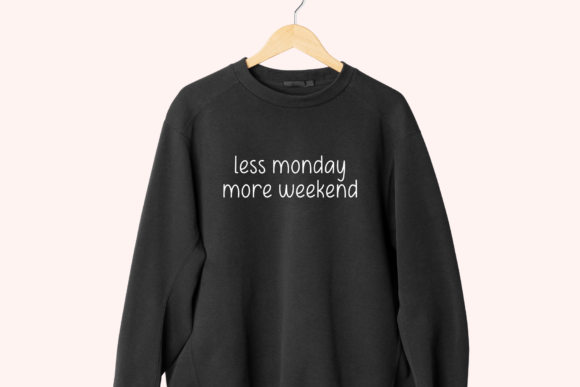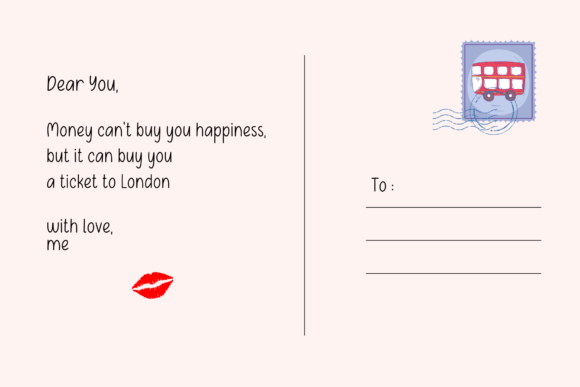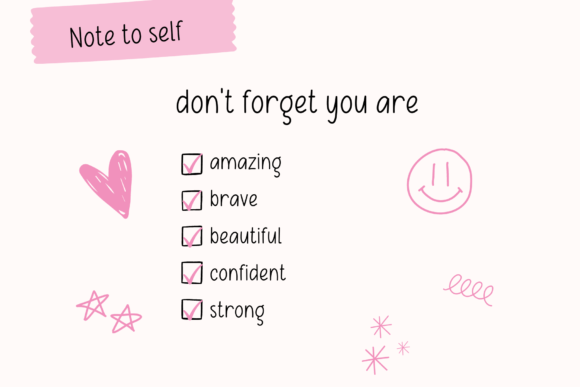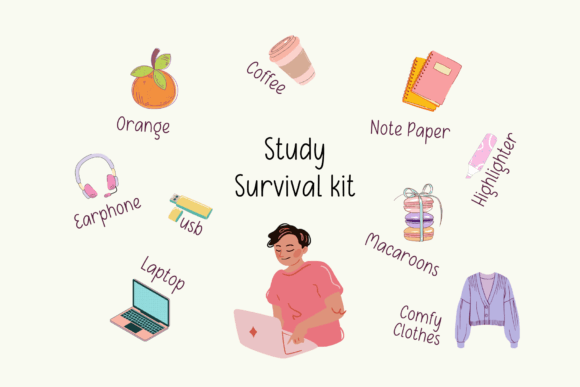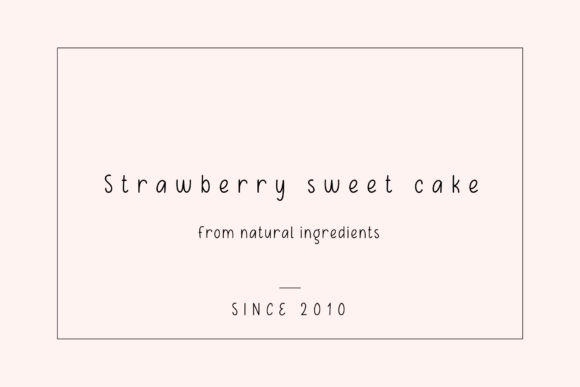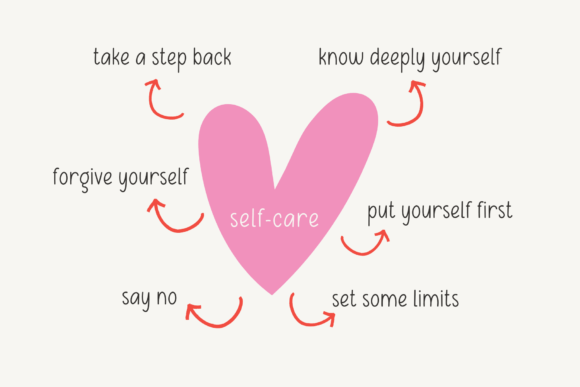
Introducing Cheesecake Font: The Sweetest Addition to Your Design Collection
Are you tired of using the same old fonts in your designs? Look no further! Cheesecake Font is a sweet and friendly handwritten font that’s sure to add a touch of warmth and personality to your creations. With its natural and unique style, Cheesecake Font is incredibly versatile and can be used in a wide range of designs, from DIY projects to professional branding materials.
The Charm of Cheesecake Font
Cheesecake Font is a handwritten font that’s designed to evoke a sense of friendliness and approachability. Its soft, rounded edges and flowing curves make it perfect for designs that require a personal touch. Whether you’re creating a logo, a greeting card, or a social media graphic, Cheesecake Font is sure to add a dash of sweetness to your design.
One of the best things about Cheesecake Font is its versatility. It’s a font that can be used in a variety of contexts, from formal to informal, and can be paired with a range of other design elements to create a unique look. Whether you’re a designer, a crafter, or a DIY enthusiast, Cheesecake Font is a great addition to your toolkit.
What Makes Cheesecake Font So Special?
So, what sets Cheesecake Font apart from other fonts? Here are just a few reasons why this font is a standout:
- Unique Style: Cheesecake Font has a one-of-a-kind style that’s both natural and elegant. Its handwritten curves and flourishes make it perfect for designs that require a personal touch.
- Versatility: Cheesecake Font can be used in a wide range of designs, from formal to informal. It’s perfect for logos, branding materials, social media graphics, and more.
- Easy to Read: Despite its unique style, Cheesecake Font is incredibly easy to read. Its clear and flowing curves make it perfect for designs that require a lot of text.
- Highly Customizable: Cheesecake Font can be paired with a range of other design elements to create a unique look. It’s perfect for designers who like to experiment with different styles and combinations.
How to Use Cheesecake Font in Your Designs
So, how can you use Cheesecake Font in your designs? Here are a few ideas to get you started:
- Branding Materials: Use Cheesecake Font to create custom branding materials, such as logos, business cards, and letterheads.
- Social Media Graphics: Add a touch of personality to your social media graphics with Cheesecake Font. It’s perfect for creating custom Facebook posts, Twitter headers, and Instagram stories.
- DIY Projects: Cheesecake Font is perfect for DIY enthusiasts who love to create handmade crafts. Use it to add a personal touch to your projects, such as scrapbook pages, journal entries, and card making.
- Web Design: Cheesecake Font can be used in web design to create custom website headers, buttons, and other design elements.
Tips and Tricks for Working with Cheesecake Font
Here are a few tips and tricks to help you get the most out of Cheesecake Font:
- Experiment with Different Sizes: Cheesecake Font looks great in a range of sizes, from small to large. Experiment with different sizes to find the one that works best for your design.
- Pair with Other Fonts: Cheesecake Font can be paired with a range of other fonts to create a unique look. Try pairing it with a bold sans-serif font for a striking contrast.
- Use it Sparingly: While Cheesecake Font is a beautiful font, it can be overwhelming if used too much. Use it sparingly to add a touch of personality to your design.
| Font Name | Cheesecake Font |
| Author | Cotton White Studio |
In conclusion, Cheesecake Font is a sweet and friendly handwritten font that’s perfect for designers and crafters who want to add a touch of personality to their creations. With its natural and unique style, Cheesecake Font is incredibly versatile and can be used in a wide range of designs. Whether you’re creating branding materials, social media graphics, or DIY projects, Cheesecake Font is a great addition to your toolkit. So why not give it a try and see what amazing designs you can create?